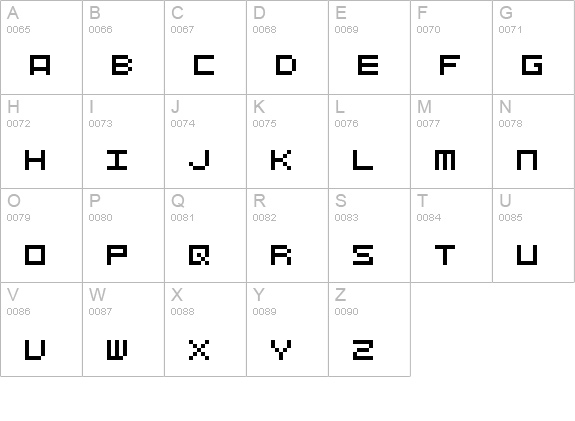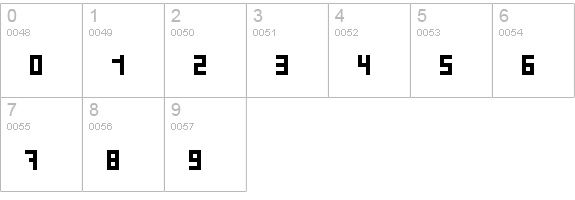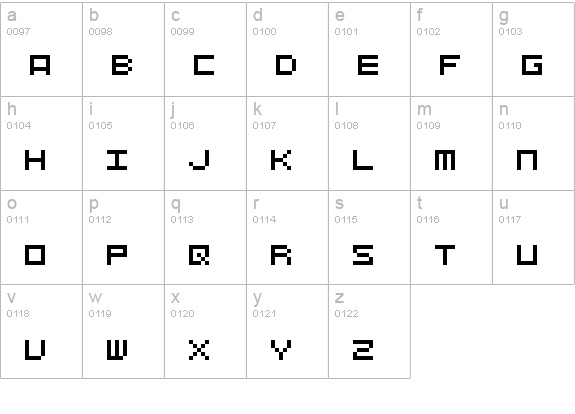
FivePX5px Font Details
FivePX5px font is a sleek and modern typeface that is perfect for creating a minimalist and stylish look in your design projects. With its clean lines and sharp edges, this font is ideal for use in digital interfaces, web design, and print materials where space is limited. The FivePX5px font offers a unique aesthetic that will make your text stand out while maintaining a professional and elegant appearance. The best part? FivePX5px font is available for free download at FontsMarket.com. This means you can easily access this versatile and eye-catching font without breaking the bank. Whether you are designing a website, creating a logo, or working on a digital project, FivePX5px font will help you achieve a polished and modern look that is sure to impress. Download this font today and take your designs to the next level with FivePX5px.